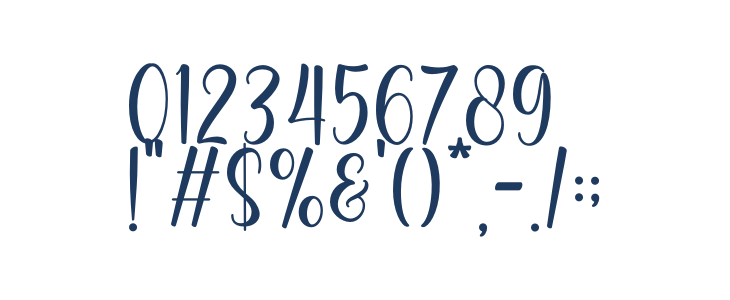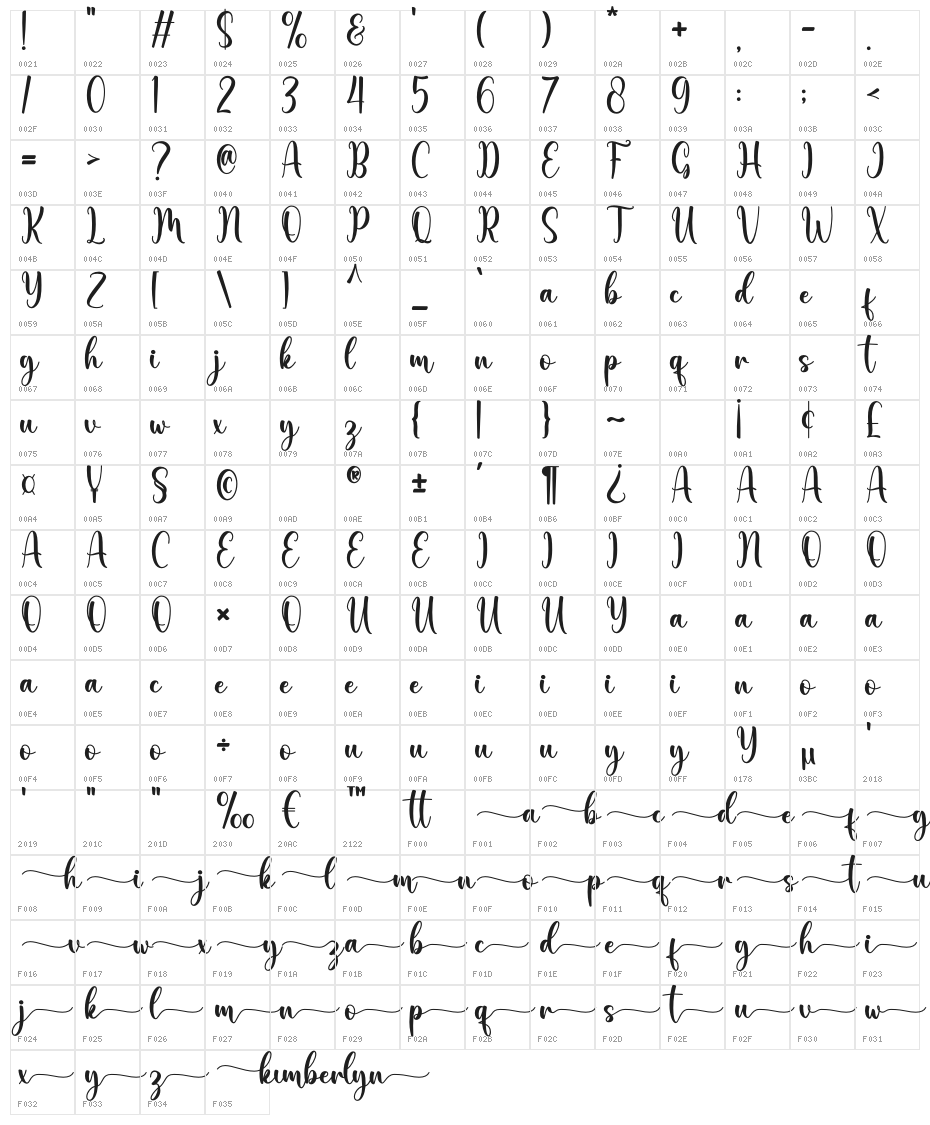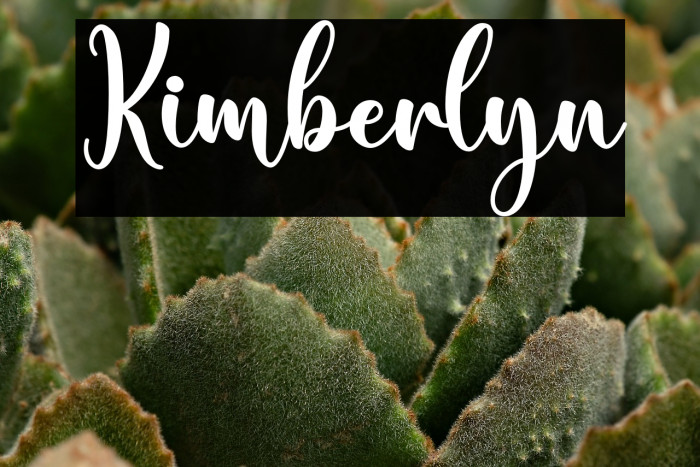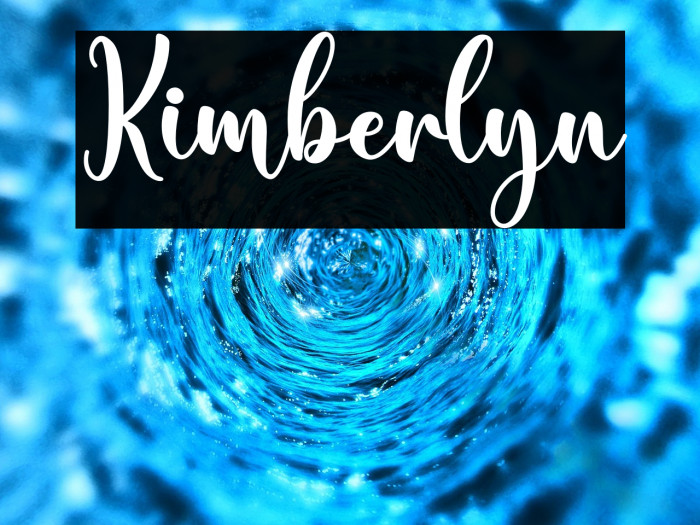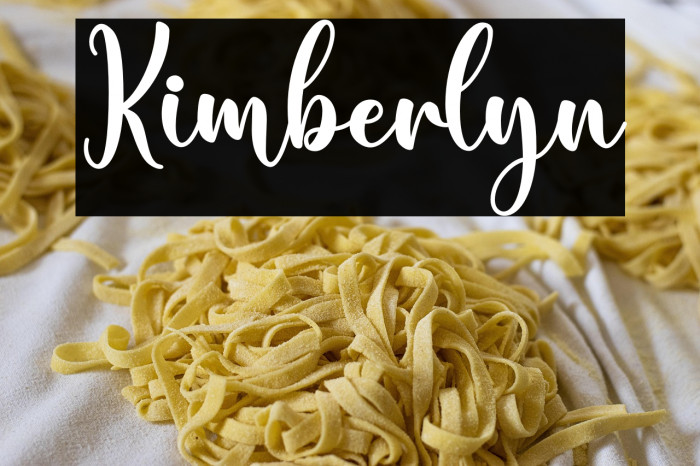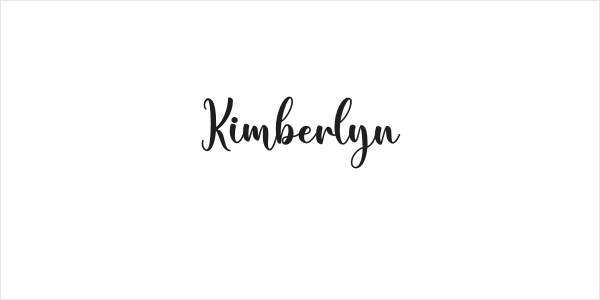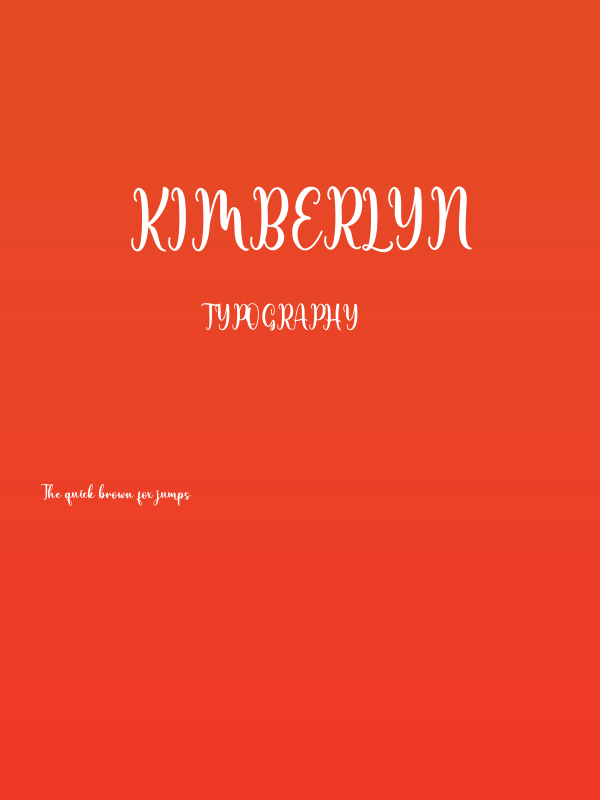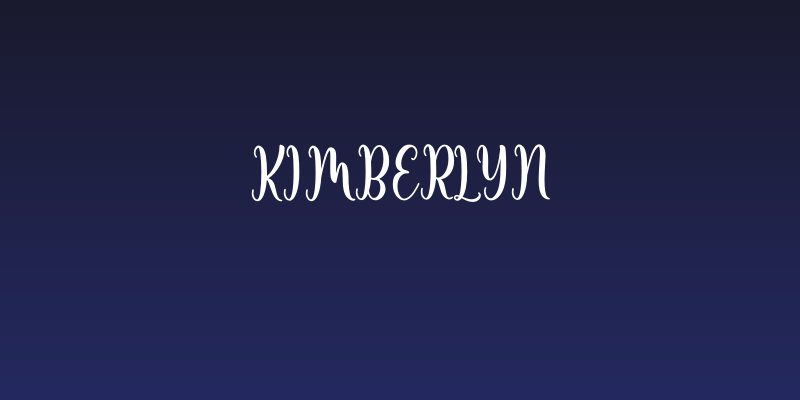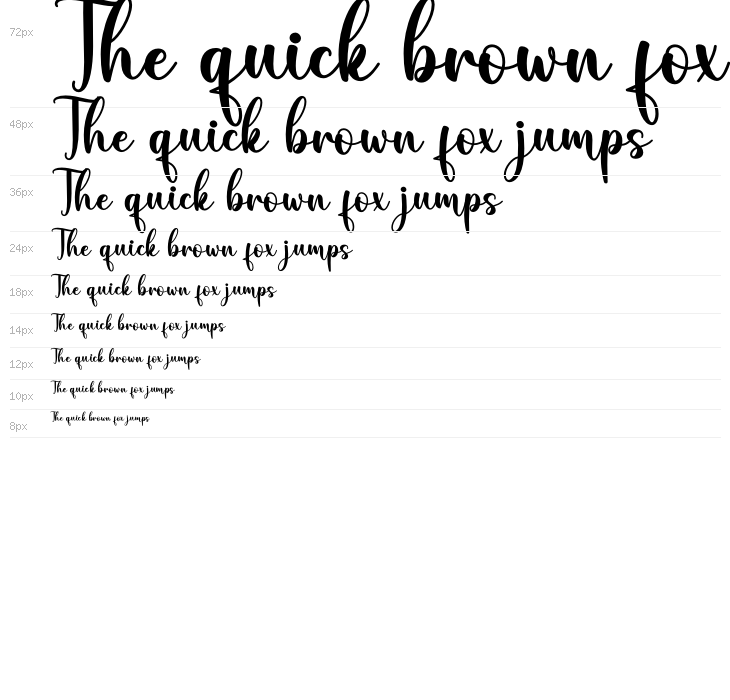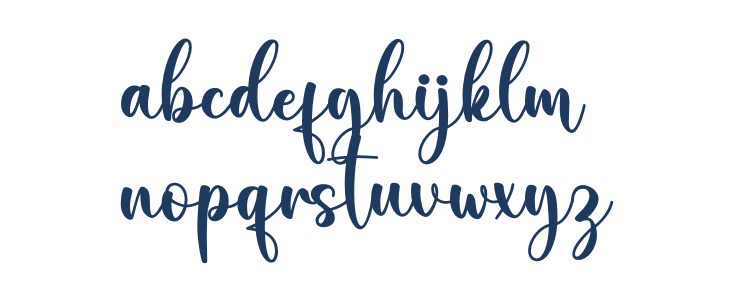
Kimberlyn Font
Kimberlyn Description
A playful and flowing script font with a handwritten style, featuring smooth curves and a casual elegance.
| Use Case | Logos, Invitations |
| Proposed Projects | Invitations, greeting cards, logos, and branding. |